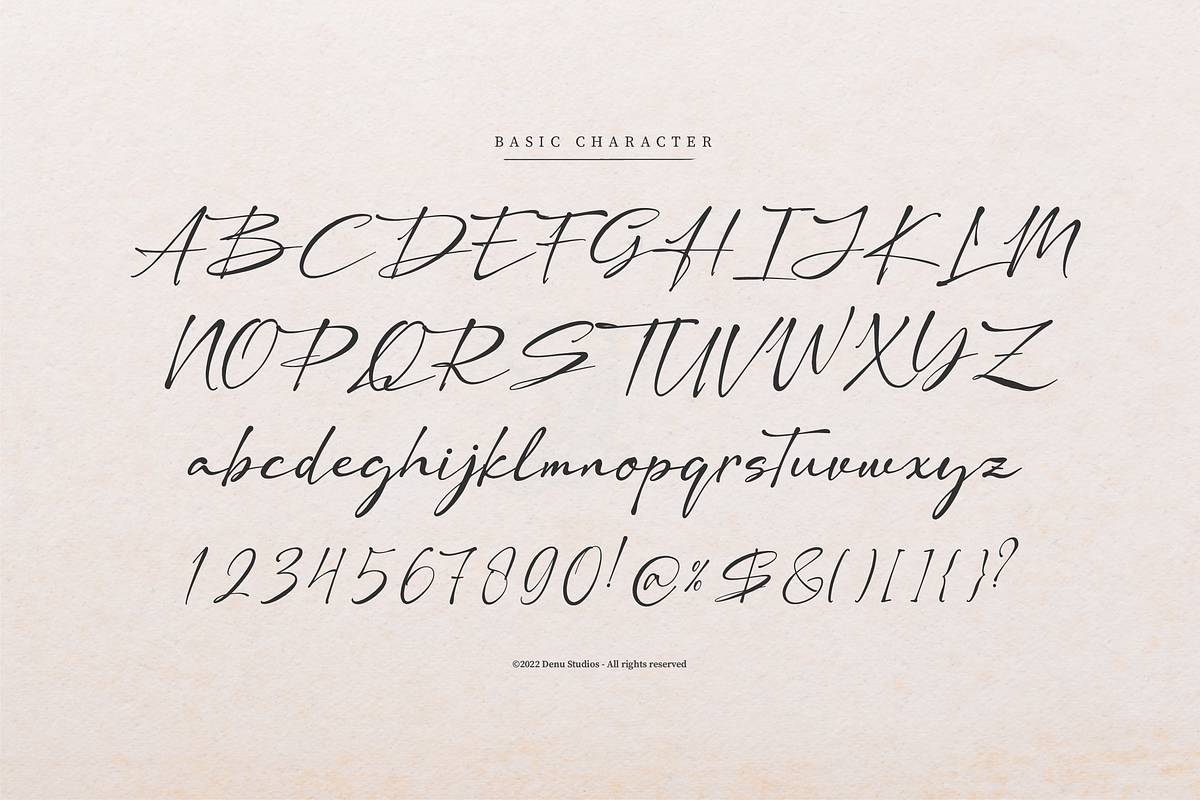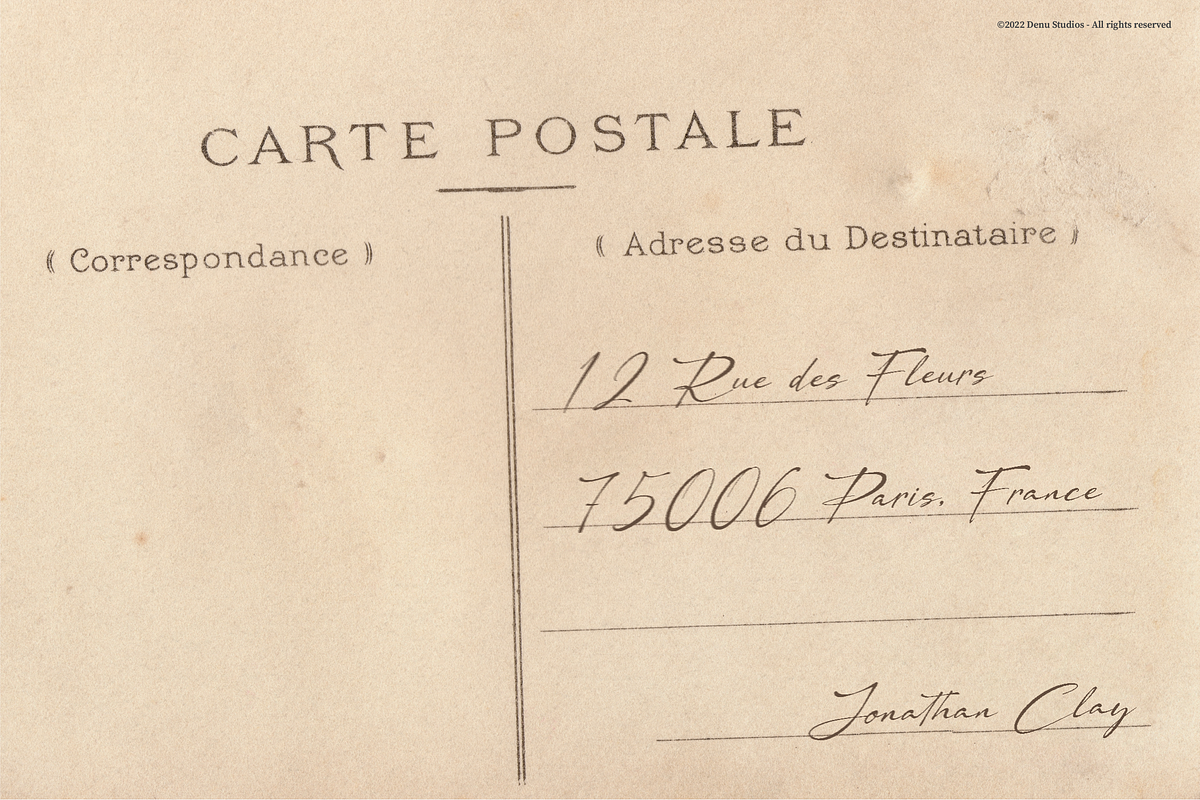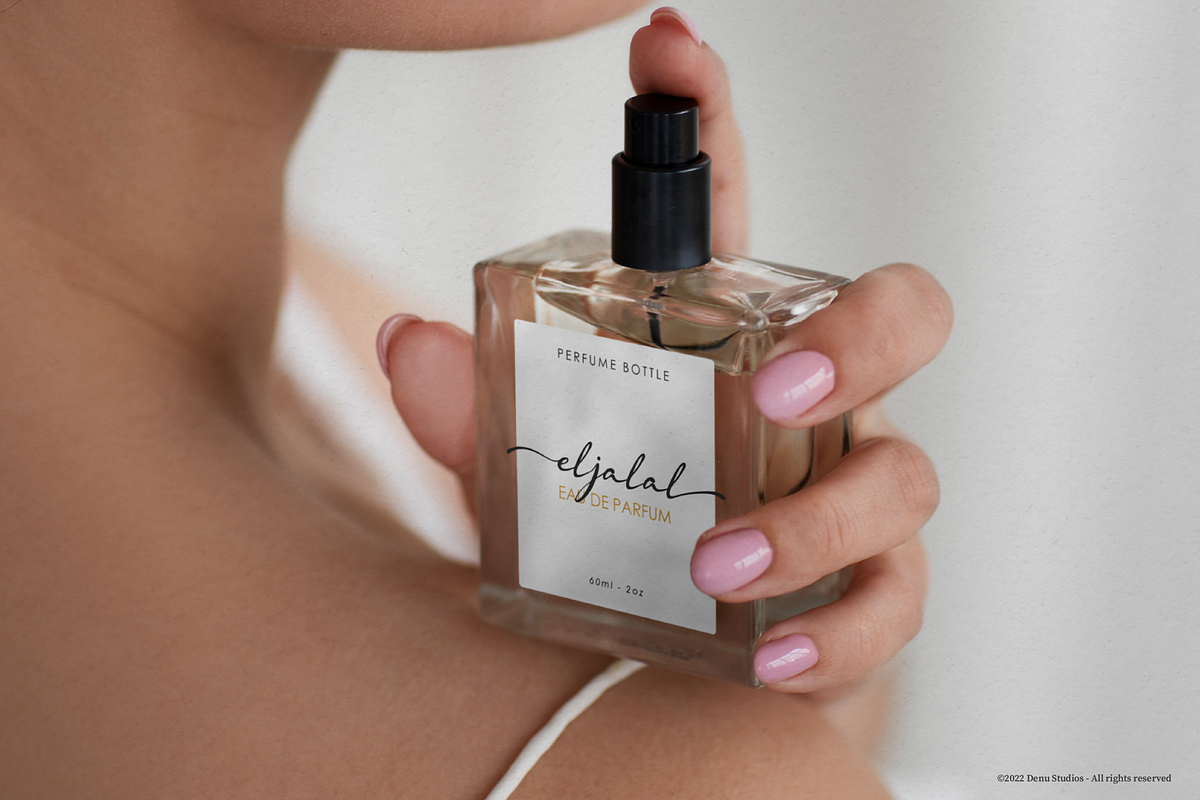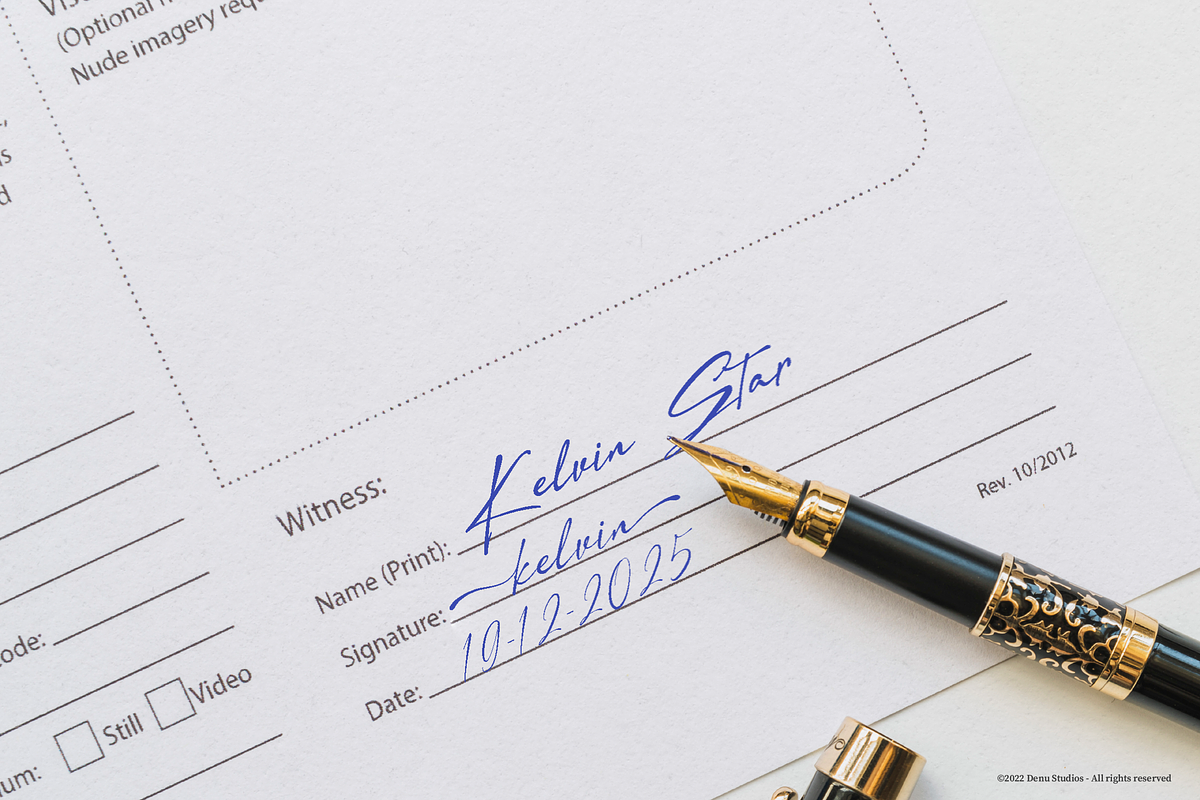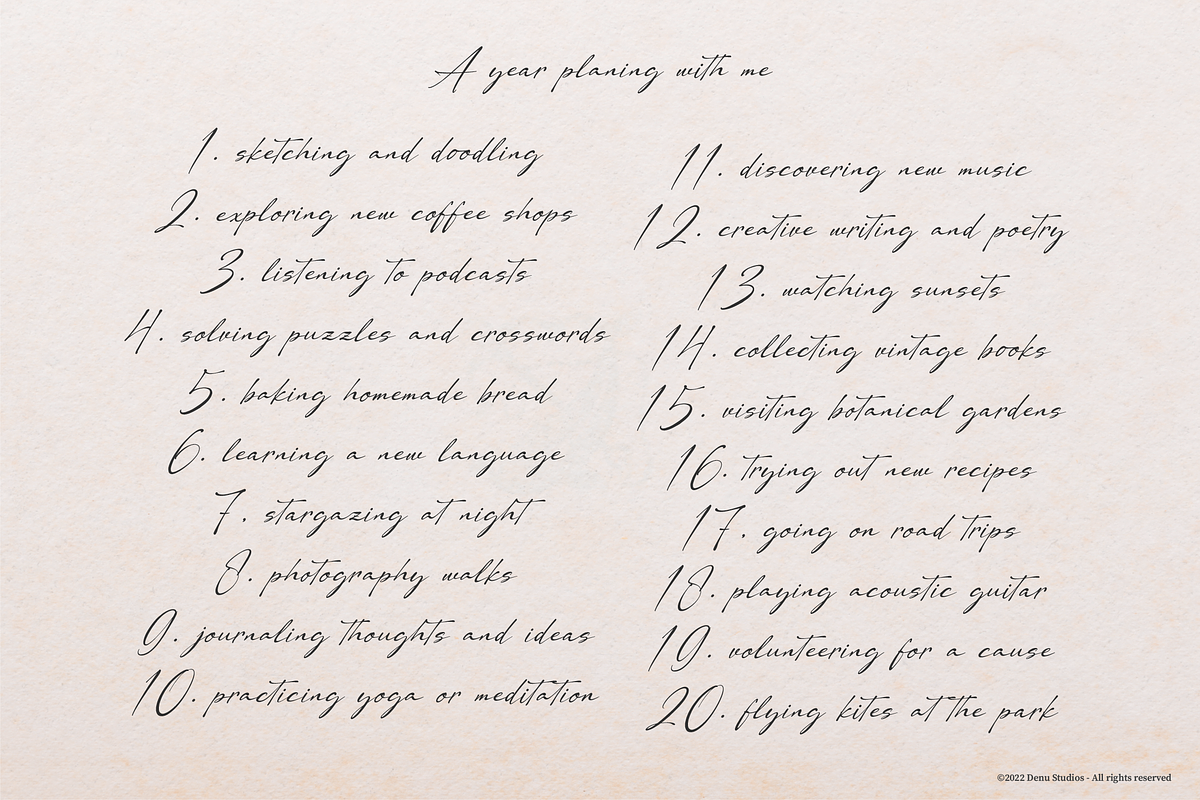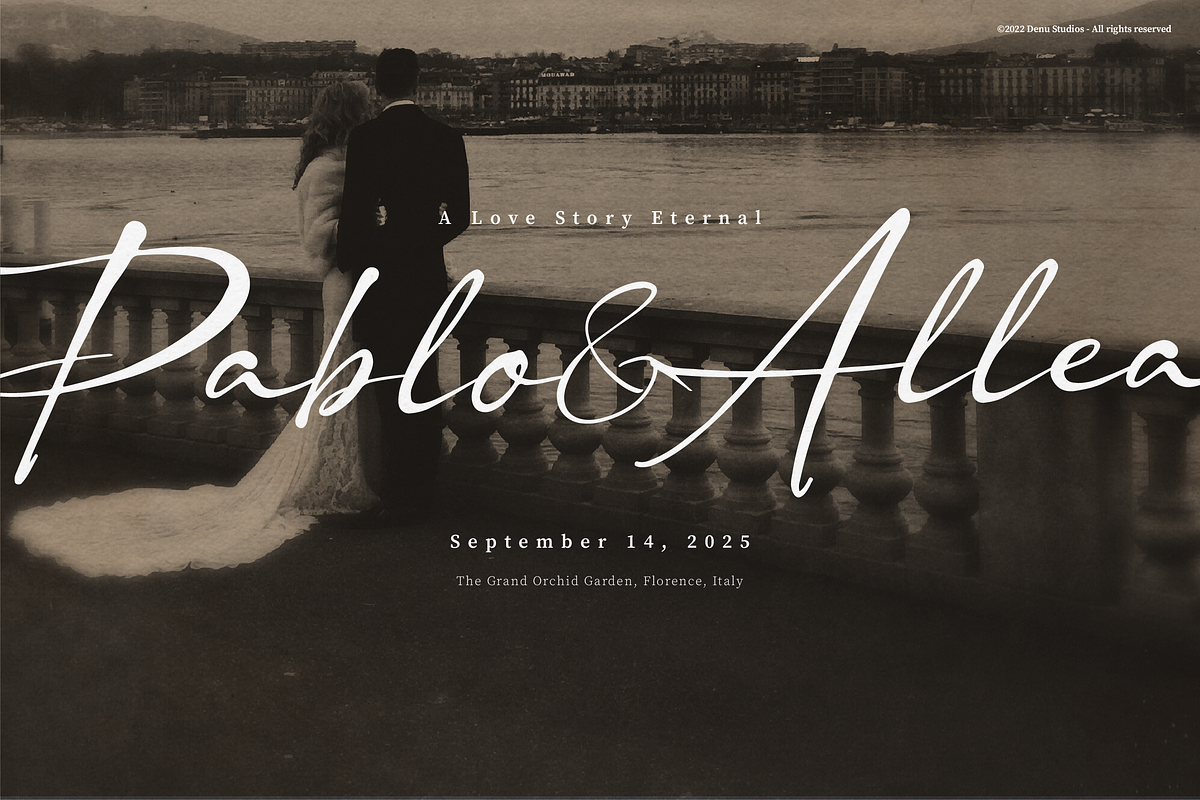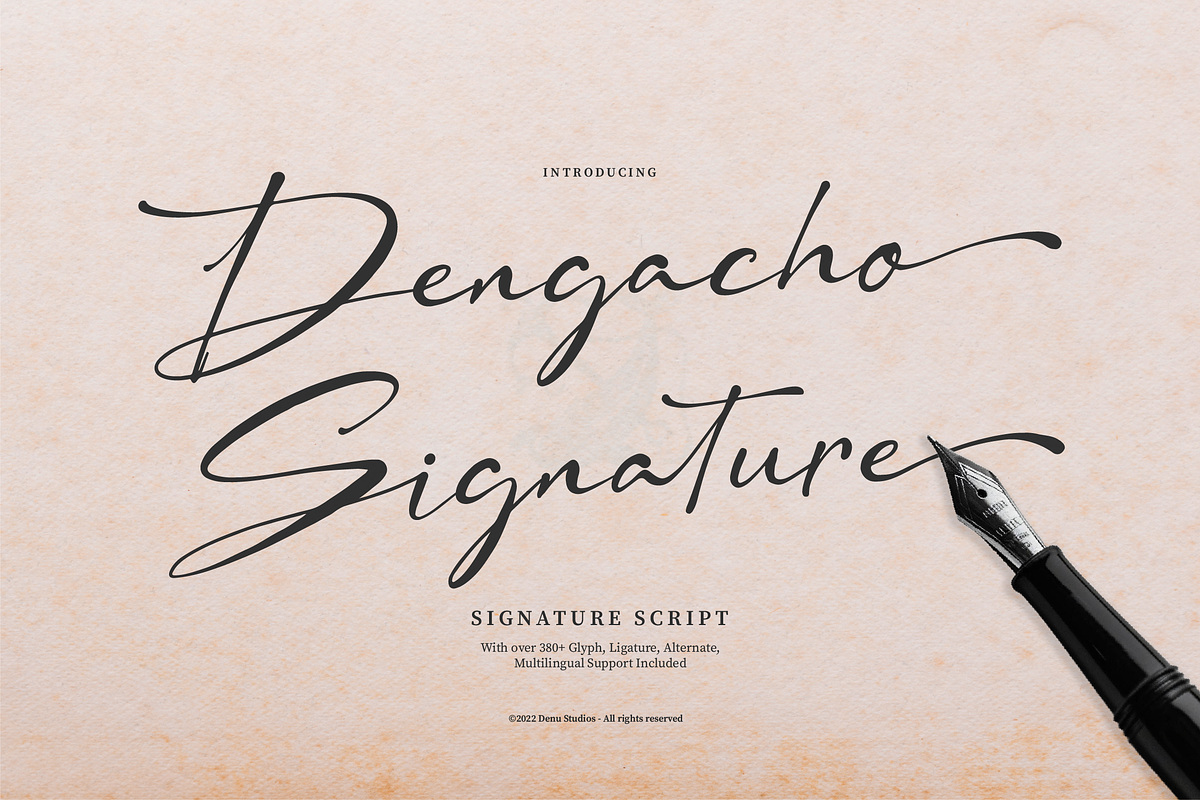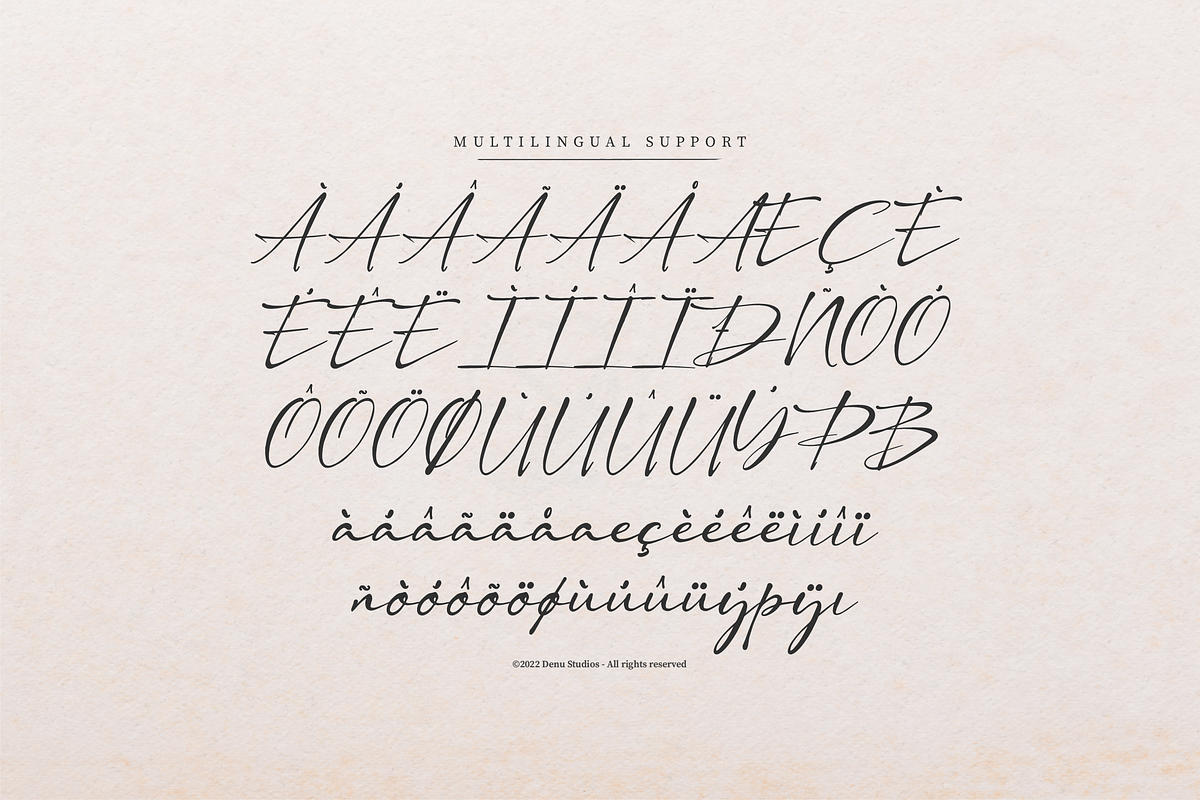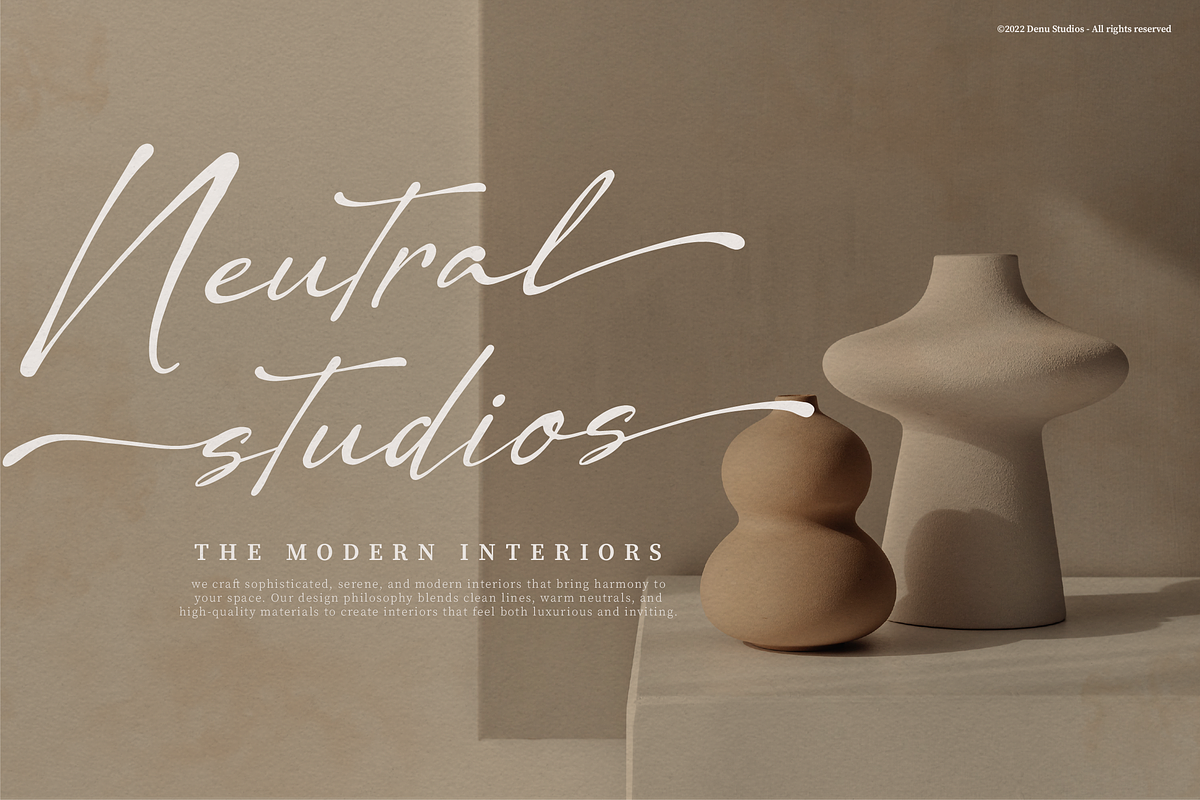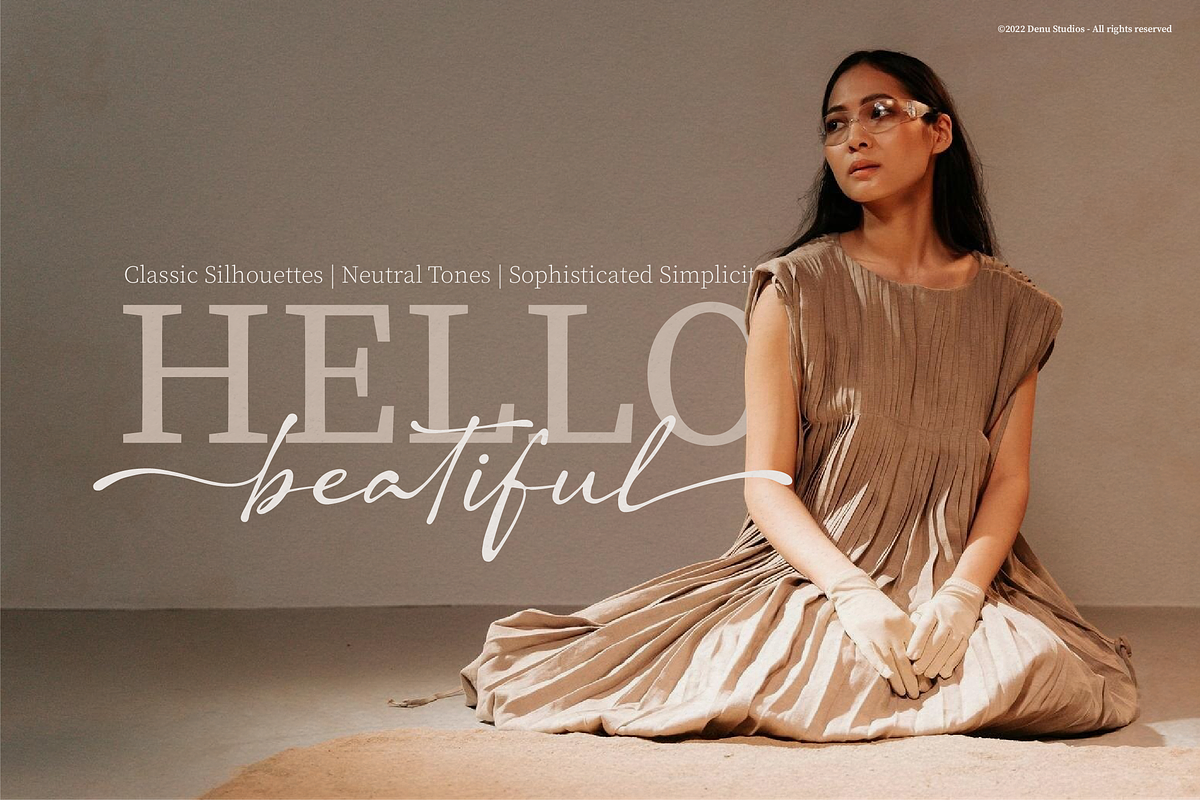
Dengacho Signature Script
Dengacho Signature | Signature Script, from Denustudios, suitable for any projects such as: logos, branding projects, homeware designs, product packaging, mugs, quotes, posters, shopping bags, t-shirts, book covers, name card, invitation cards, greeting cards, label, photography, watermark, special events, and all your other lovely projects that need a Signature Script taste.